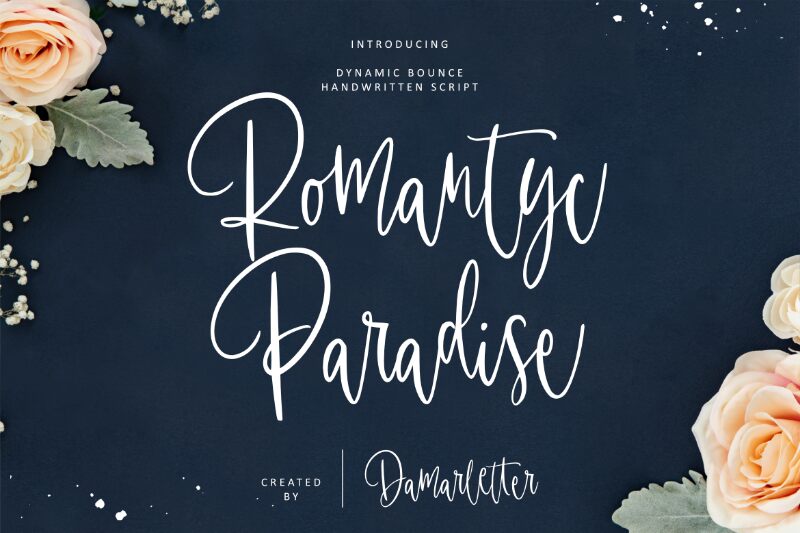
Romantyc Paradise is a light handwritten font designed by Ardian Nuvianto. Its graceful curves and delicate line work make it perfect for adding a romantic, personalized touch to any project. From wedding invitations to thank you cards, this font will add an elegant, whimsical flair. It can also be used to create stunning logos, posters and signs that have a unique, hand-crafted feel. Let Romantyc Paradise bring beauty and charm to your projects!